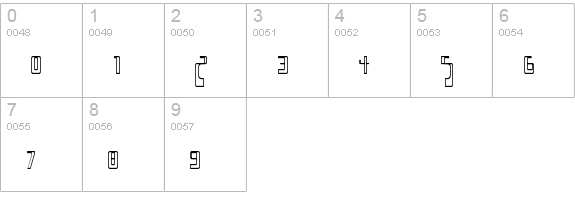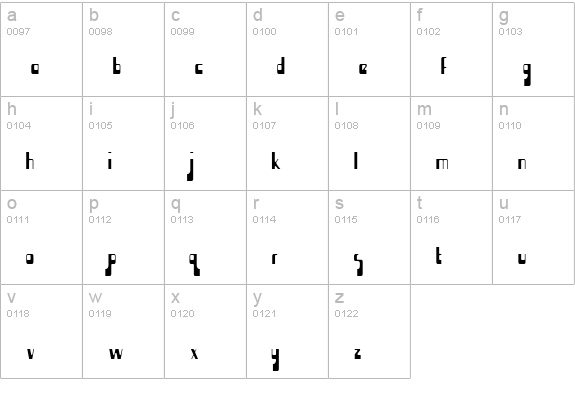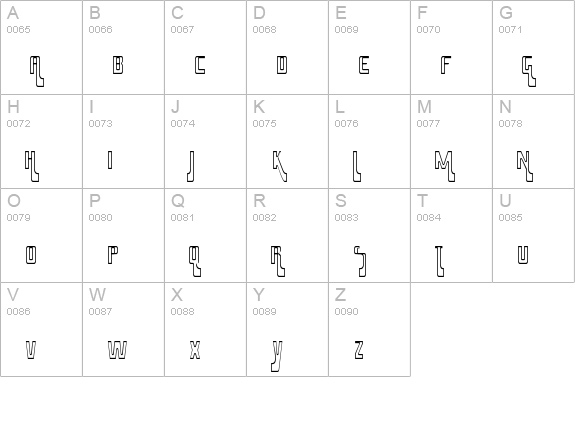
Hamma Mamma Jamma Font Details
Introducing Hamma Mamma Jamma, a bold and energetic font that will make your designs stand out from the crowd. This font is the perfect choice for those seeking a fun and playful vibe with a touch of sophistication. Hamma Mamma Jamma is a versatile typeface that can be used for a wide range of projects, from logo designs to posters, invitations, and more. Its unique and eye-catching letterforms are designed to grab attention and leave a lasting impression. But what sets Hamma Mamma Jamma apart is not just its striking appearance, but also the fact that it is available for free! That's right, this fantastic font can be downloaded at no cost from FontsMarket.com, making it accessible to designers and creatives everywhere. Whether you're a professional designer looking to add a fresh and vibrant touch to your projects or a hobbyist wanting to experiment with a new font, Hamma Mamma Jamma is the perfect choice. Its bold and playful nature will inject energy into any design, while its freely available download option makes it a valuable addition to any creative arsenal. So don't miss out on this opportunity to enhance your designs with the captivating charm of Hamma Mamma Jamma. Download it for free today at FontsMarket.com and let your creativity soar!